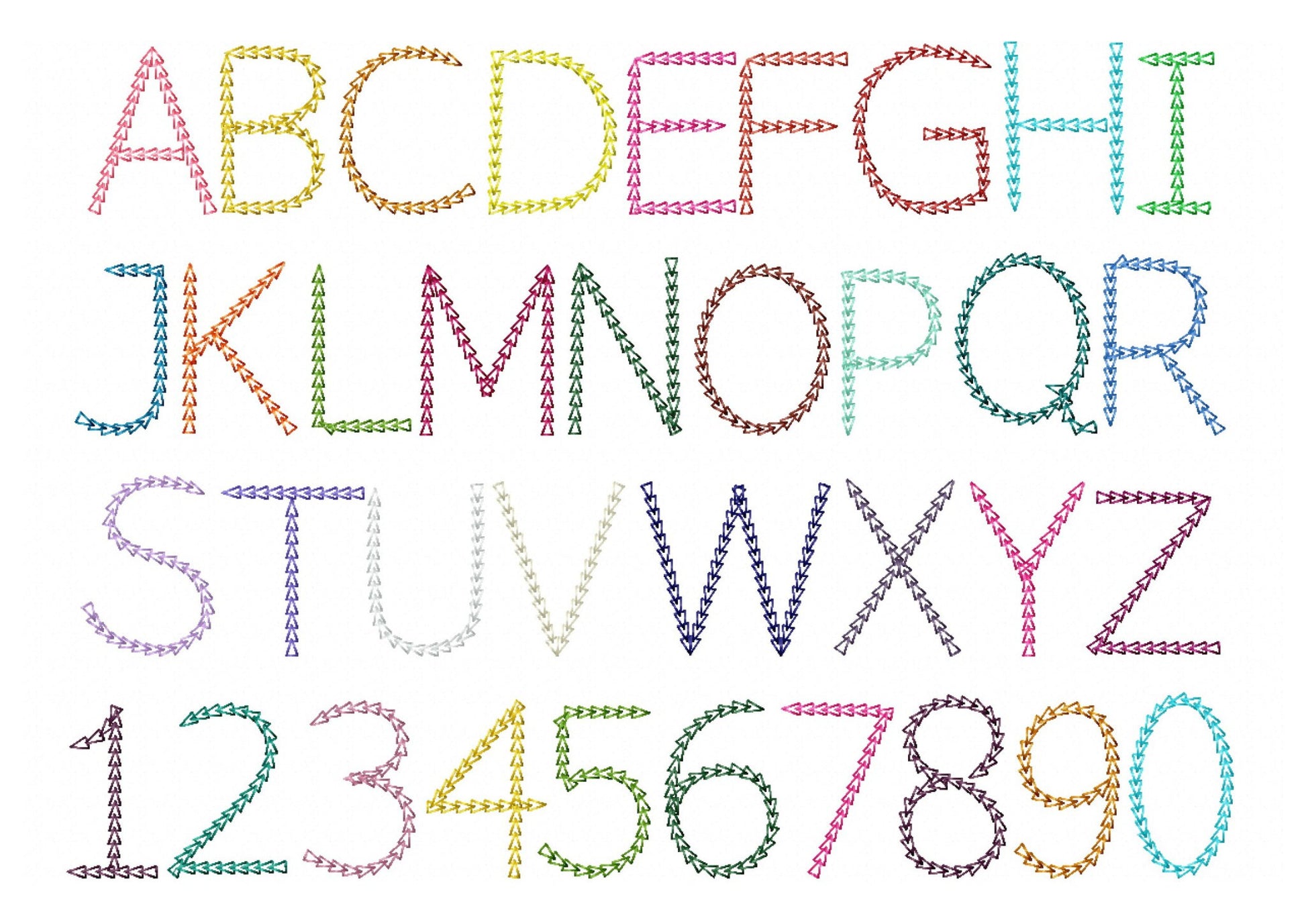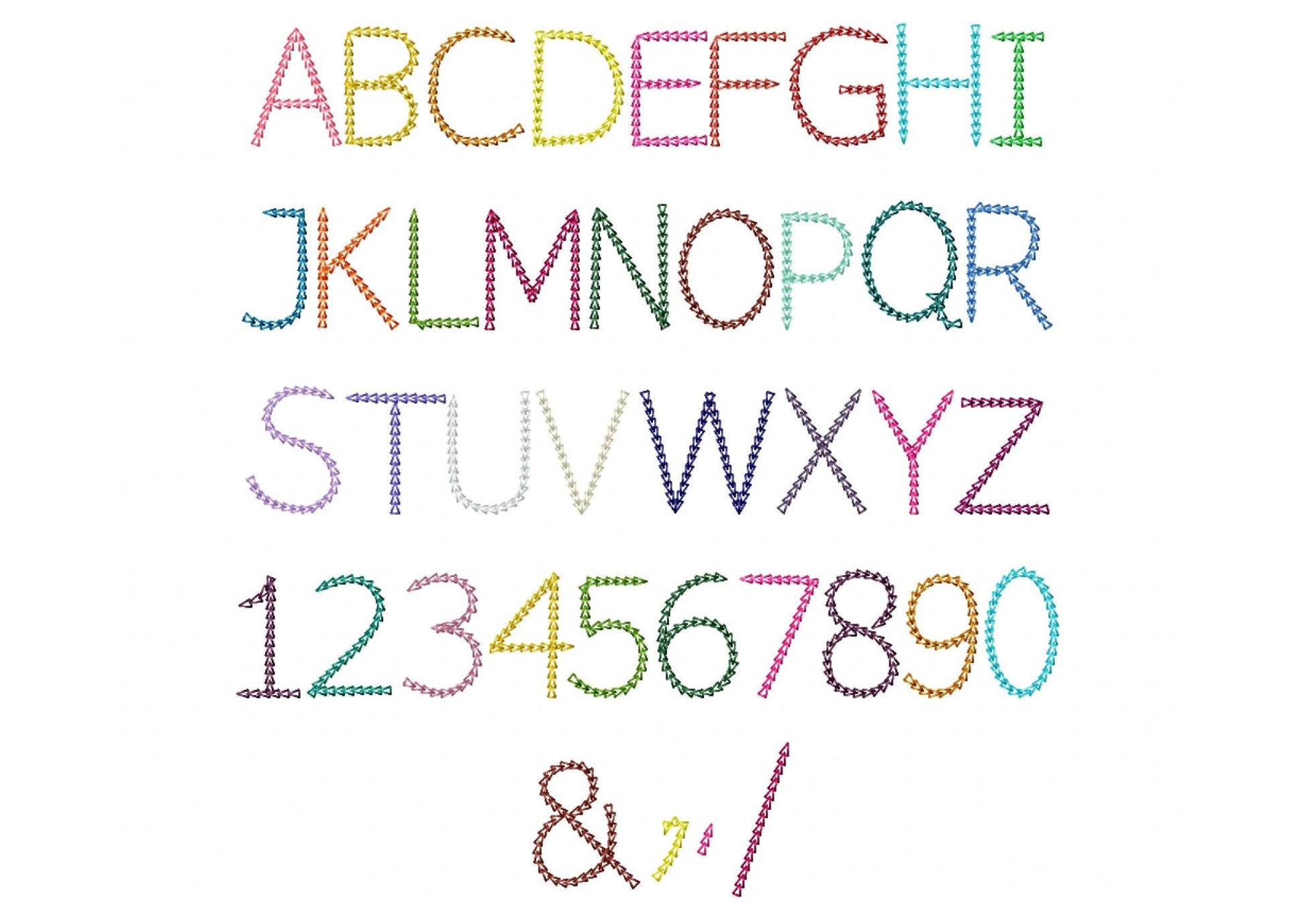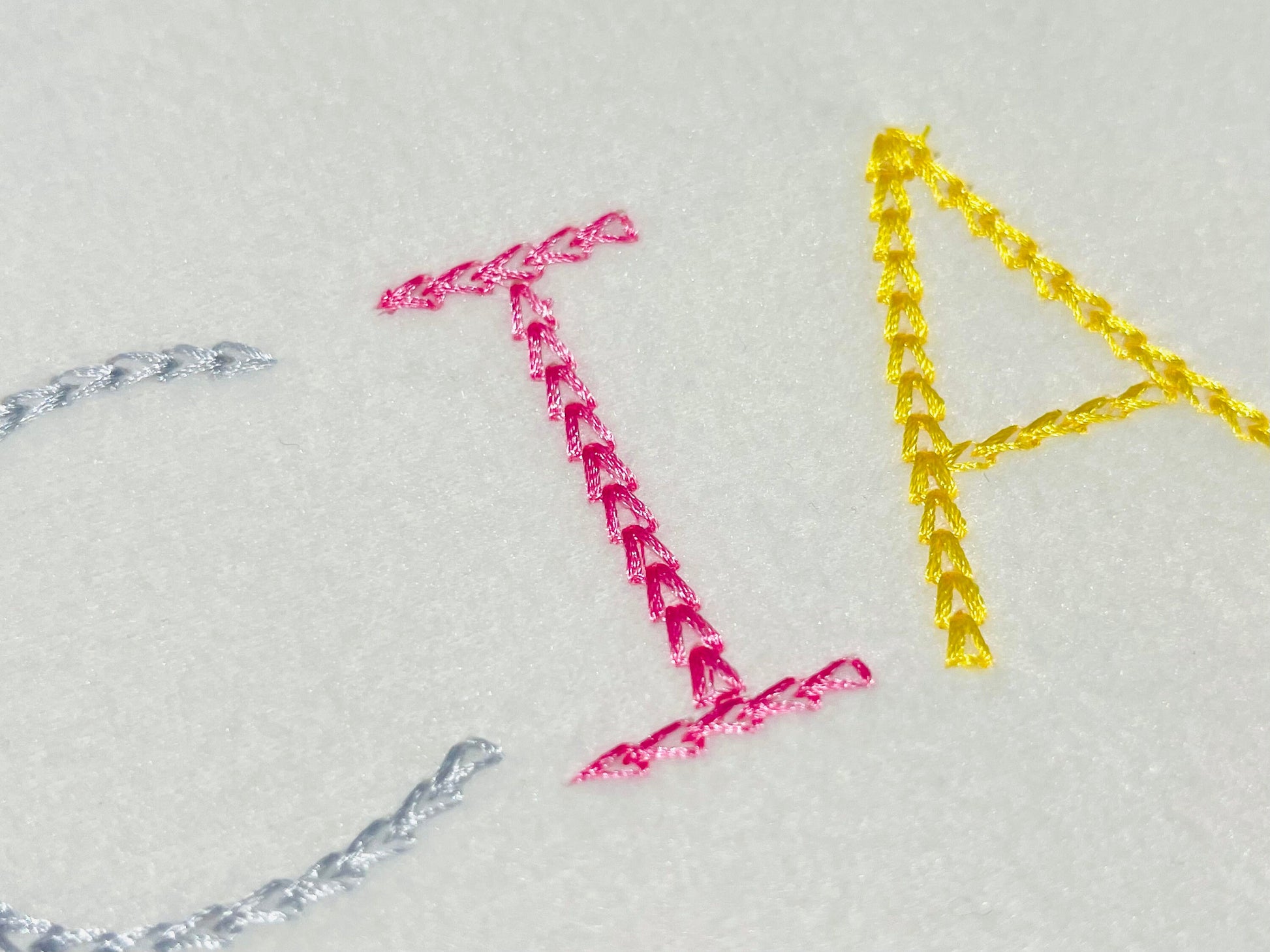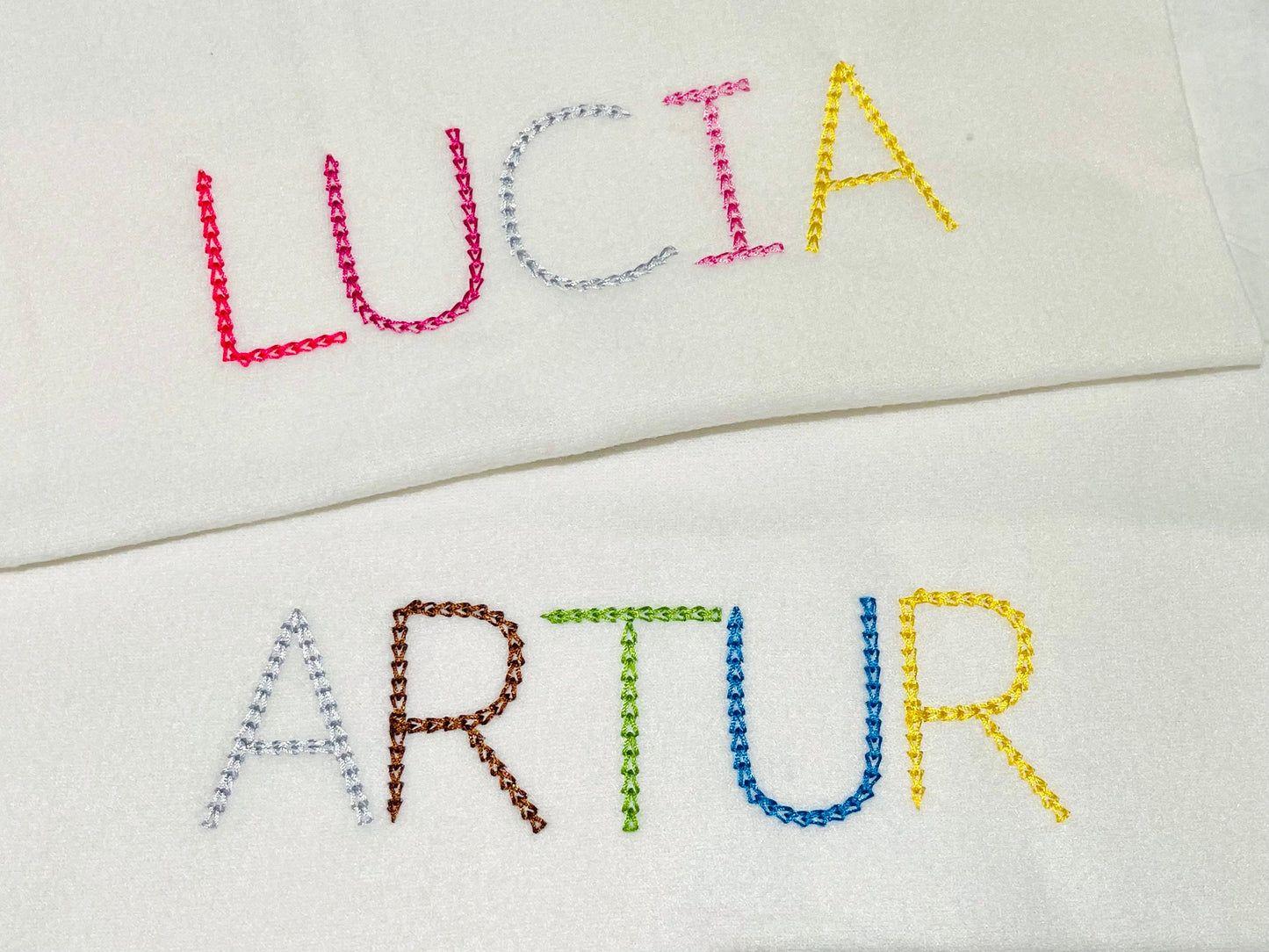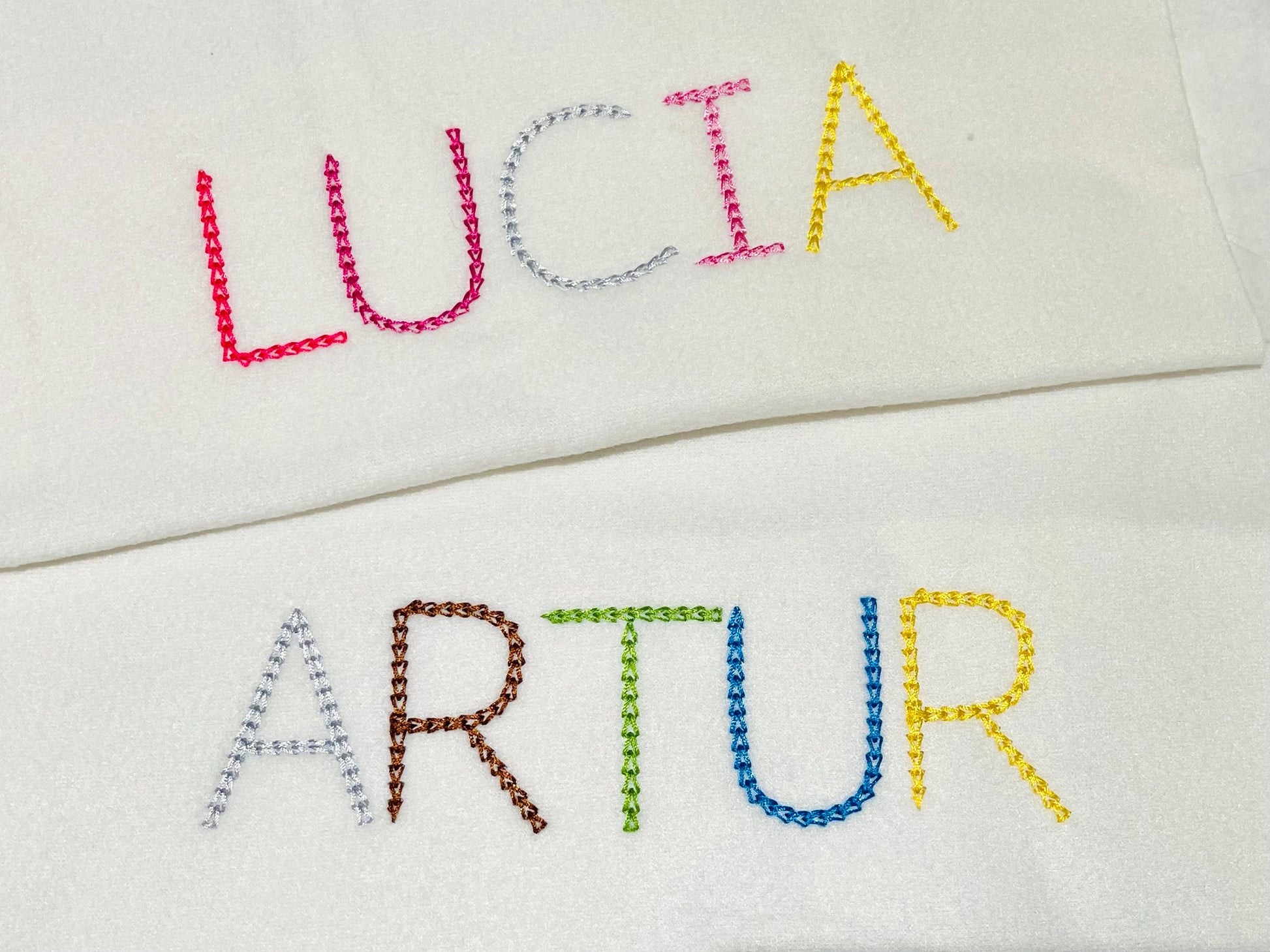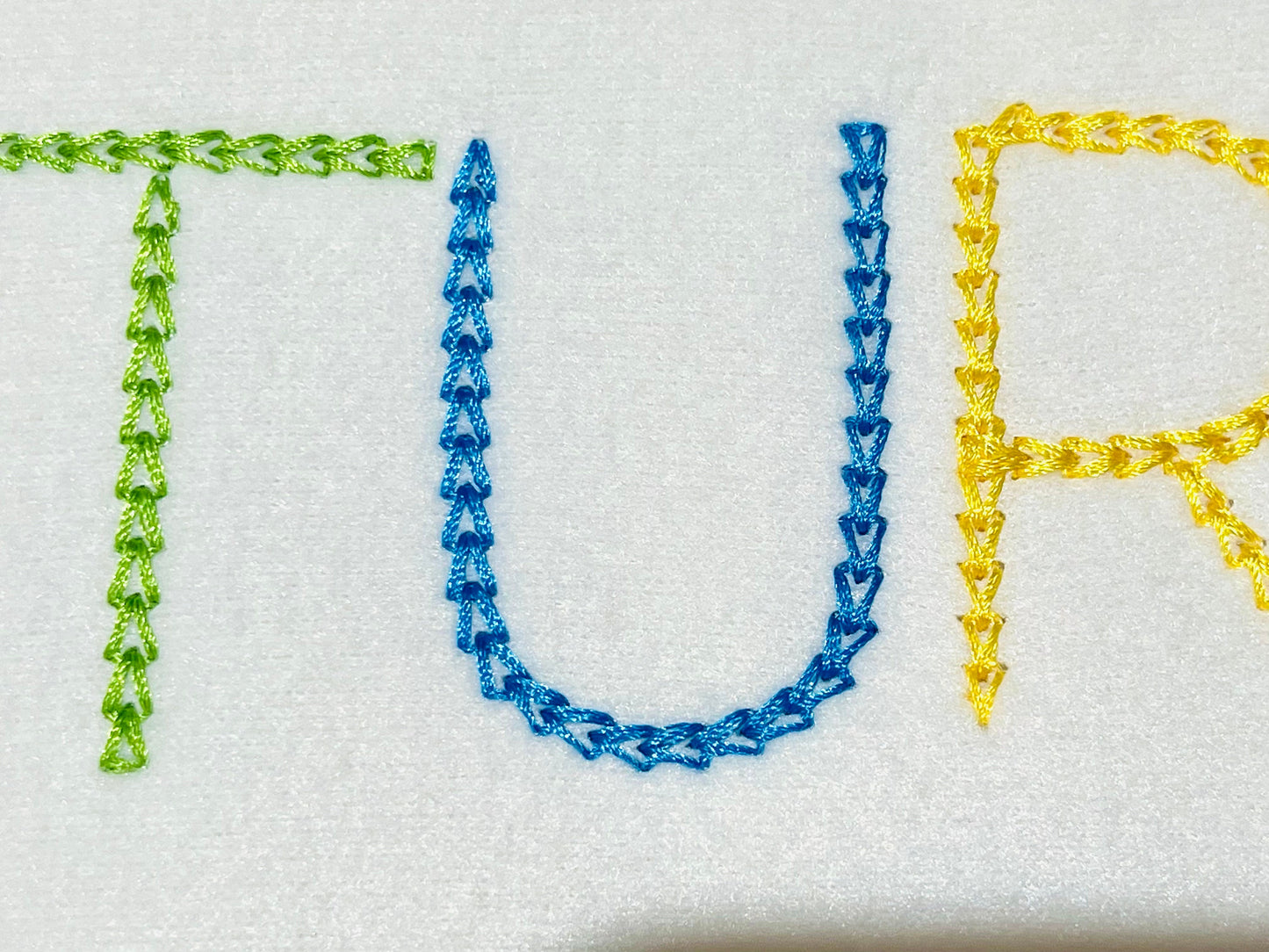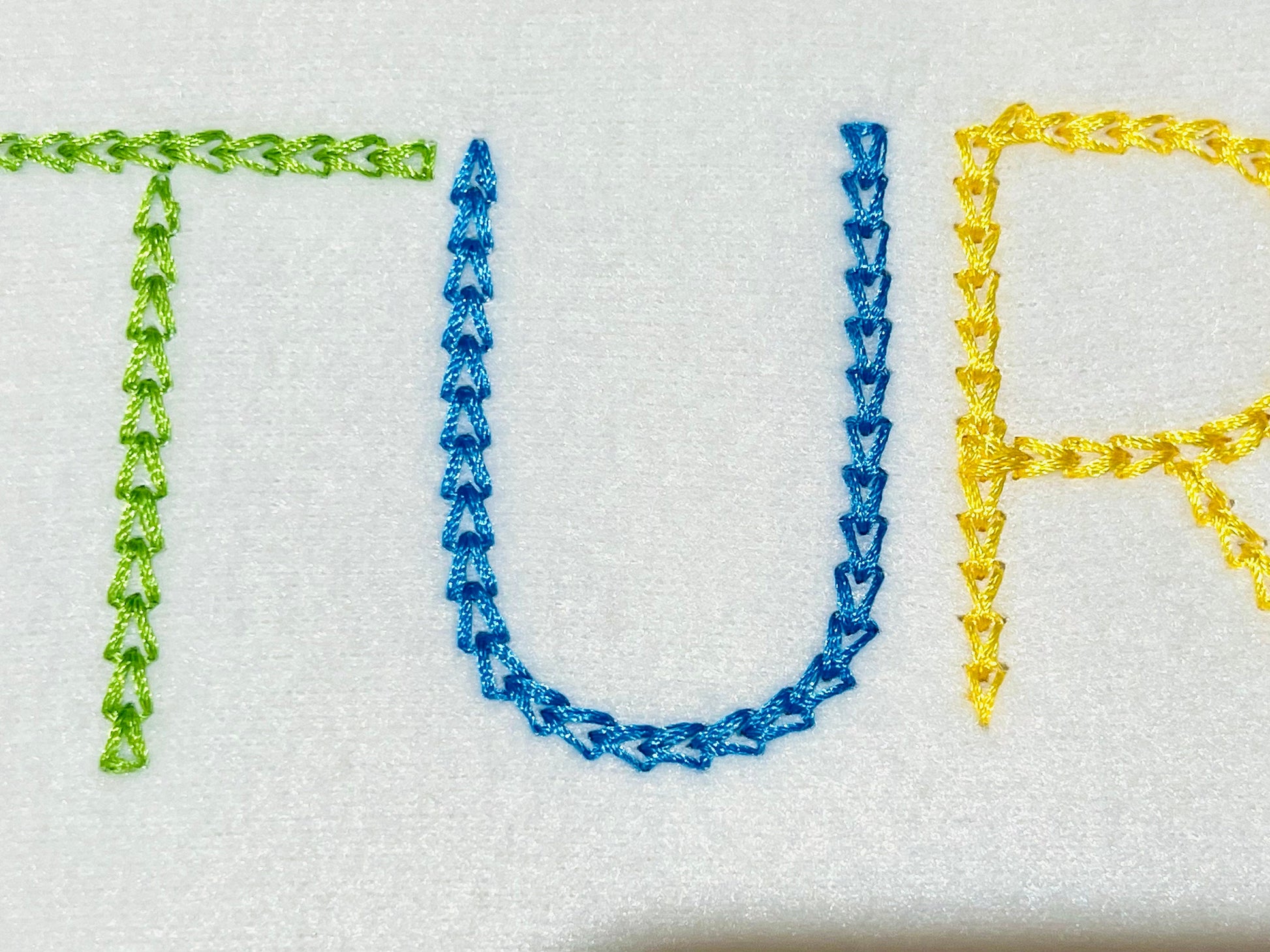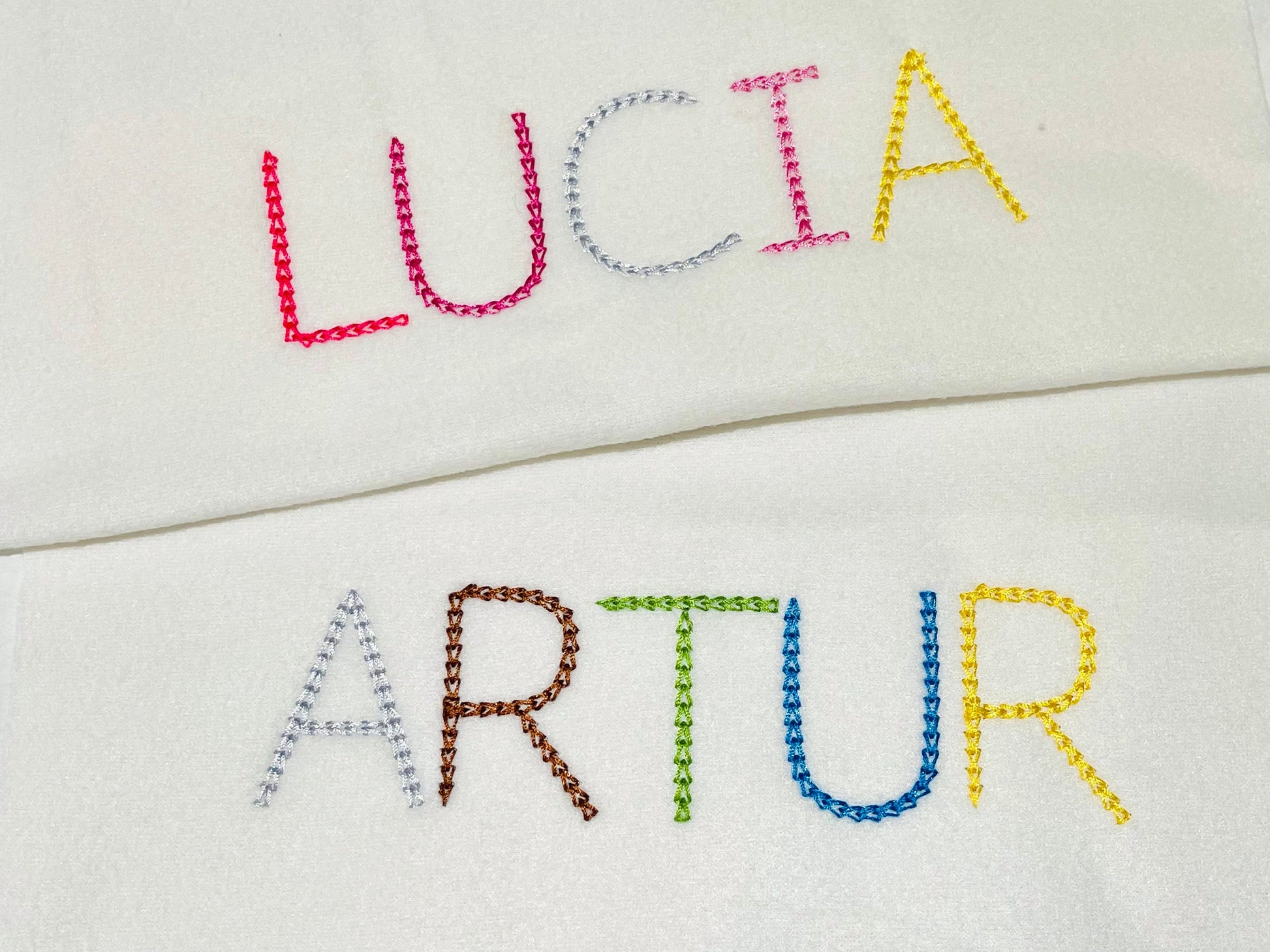
Or click to open the linkQuick light stitch Chain FONT machine embroidery designs in assorted mini sizes alphabet letters, playful kids link chain name
Whole alphabet A-Z uppercase, numbers 0-9, and punctuation.